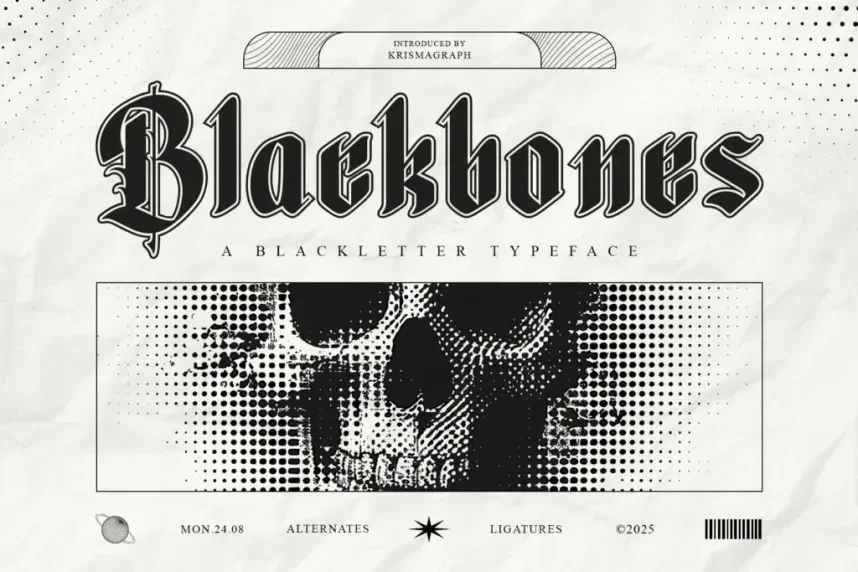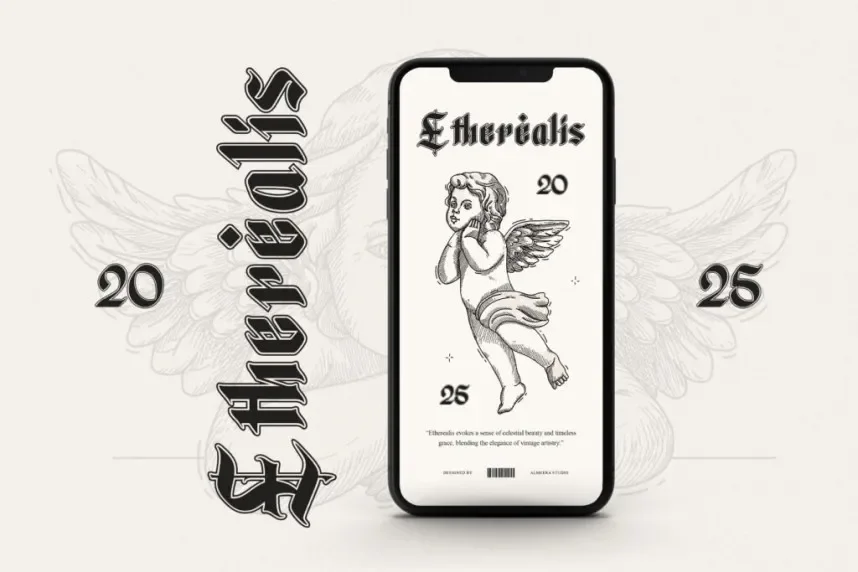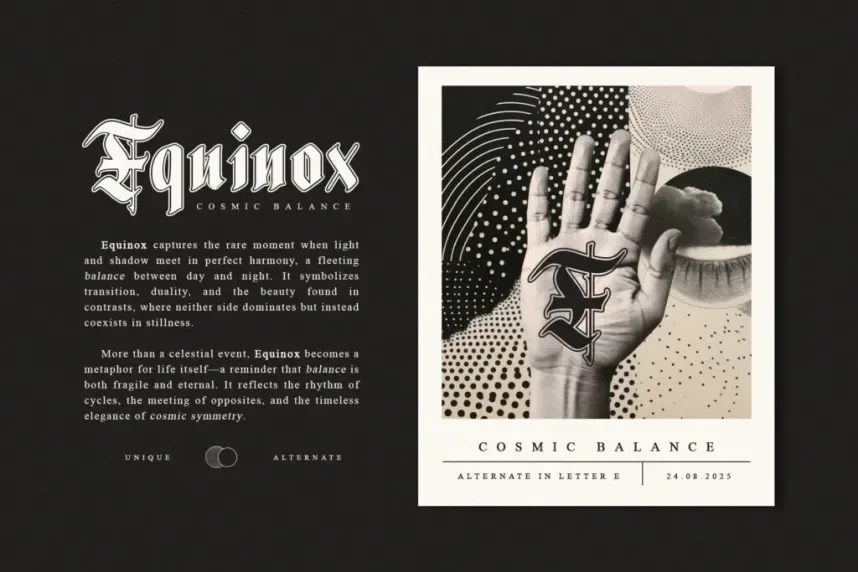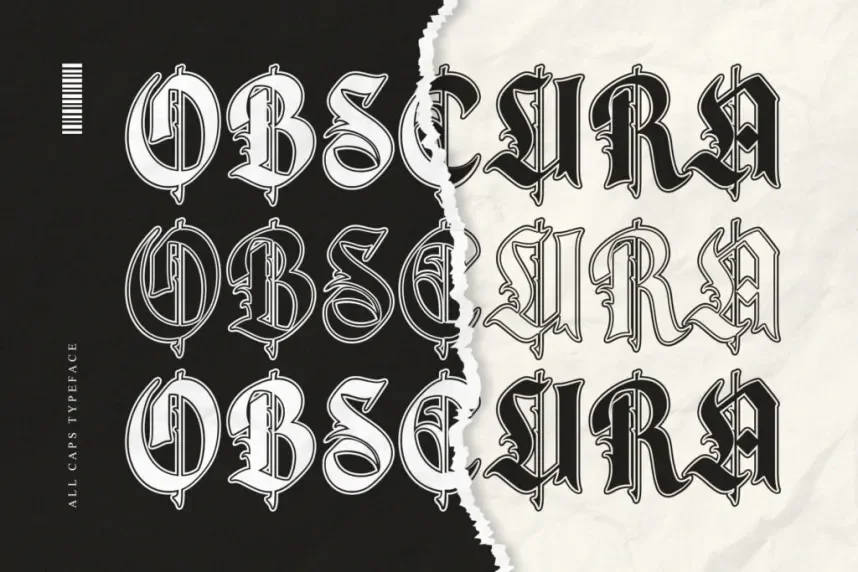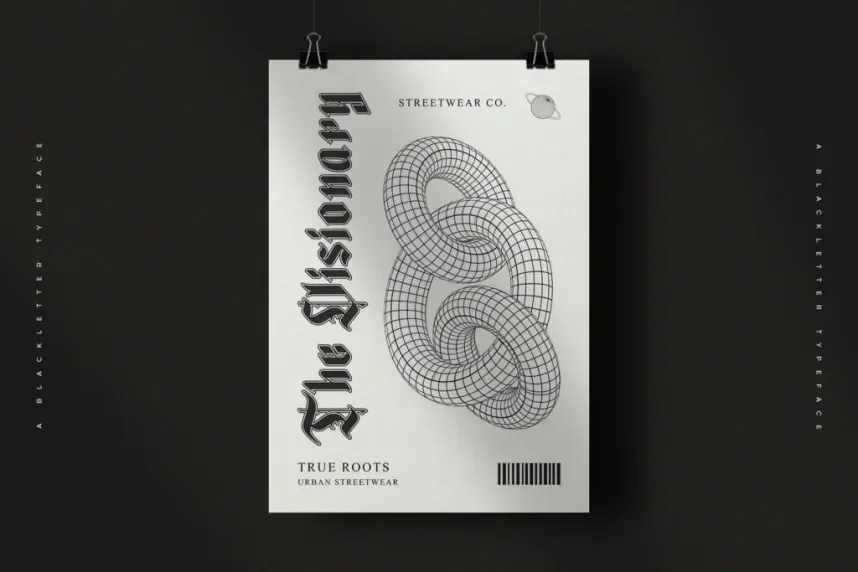
Blackbones Font is a bold, display typeface with strong, angular letterforms. Its sharp, geometric design makes it ideal for projects that require attention-grabbing headlines or logo designs. The thick strokes and condensed structure provide an impactful visual, perfect for branding or creative campaigns.